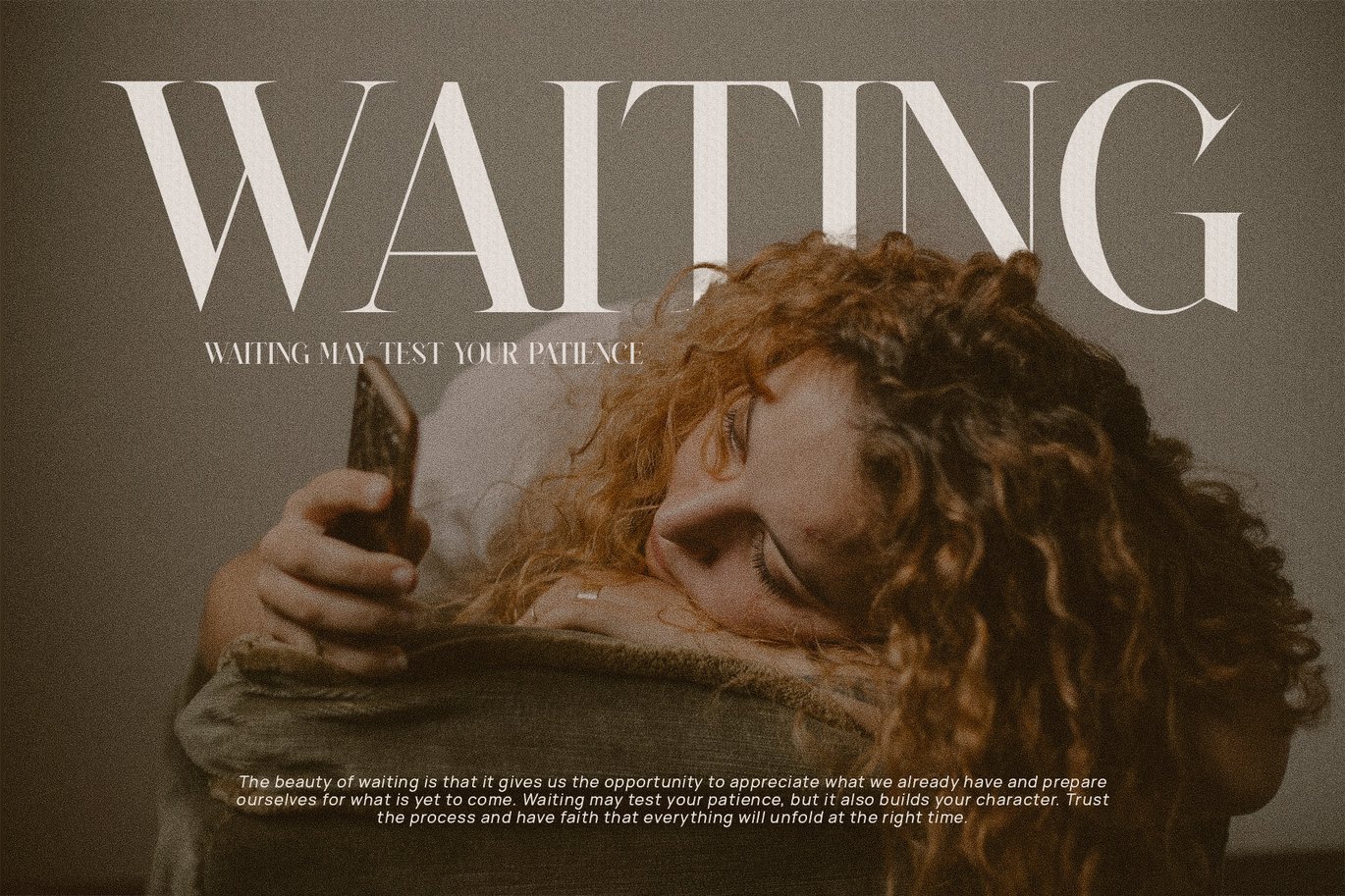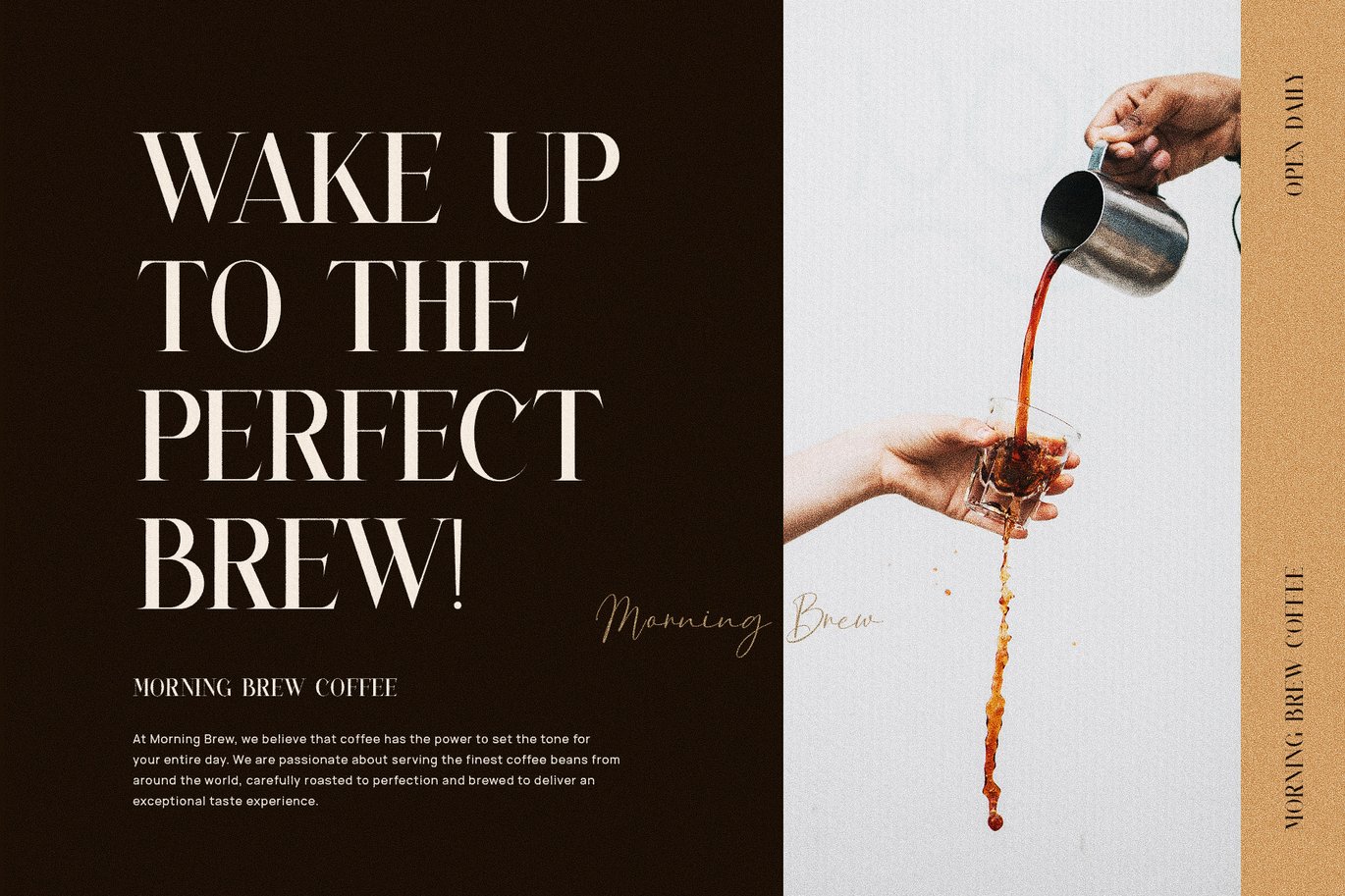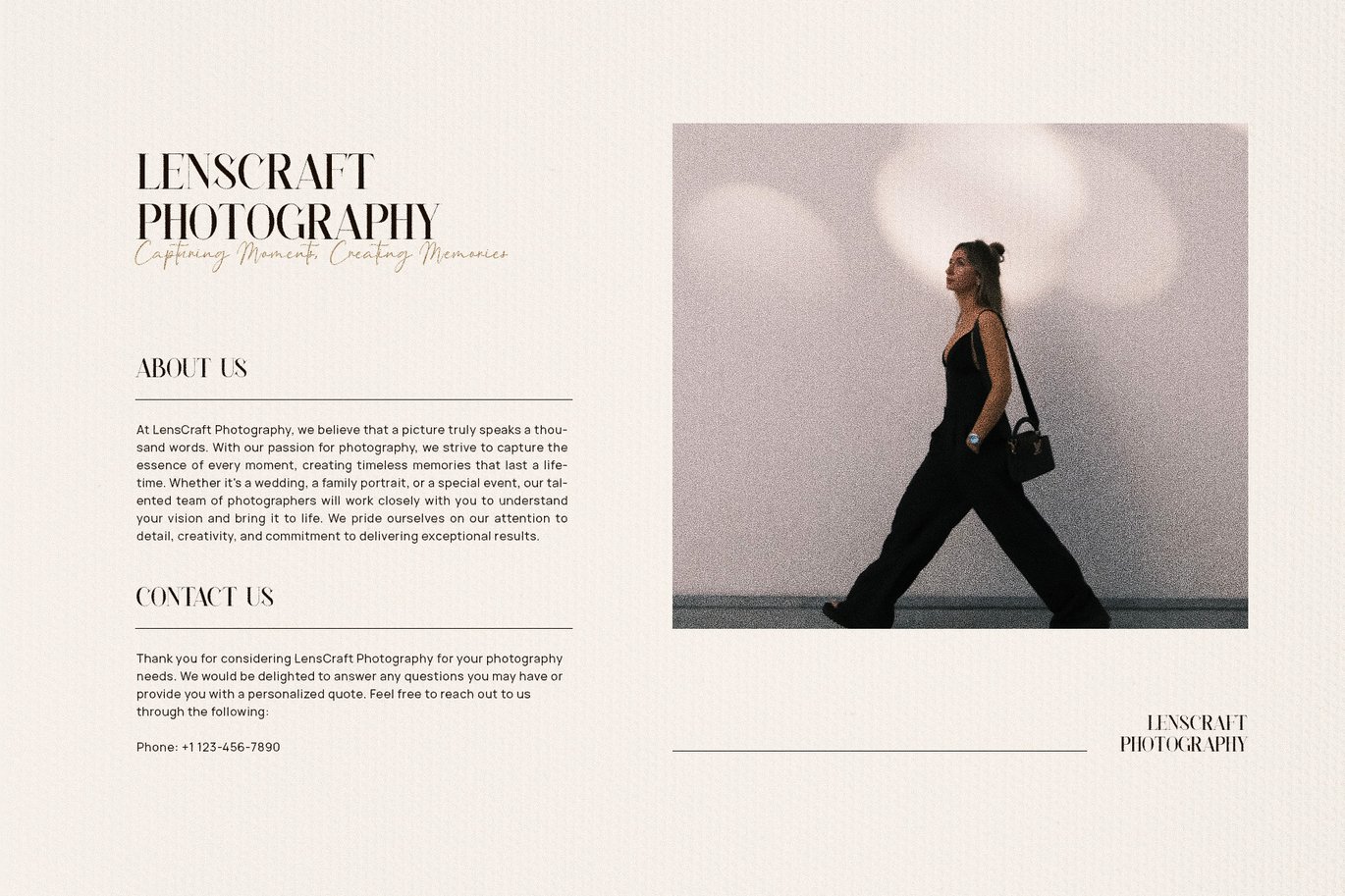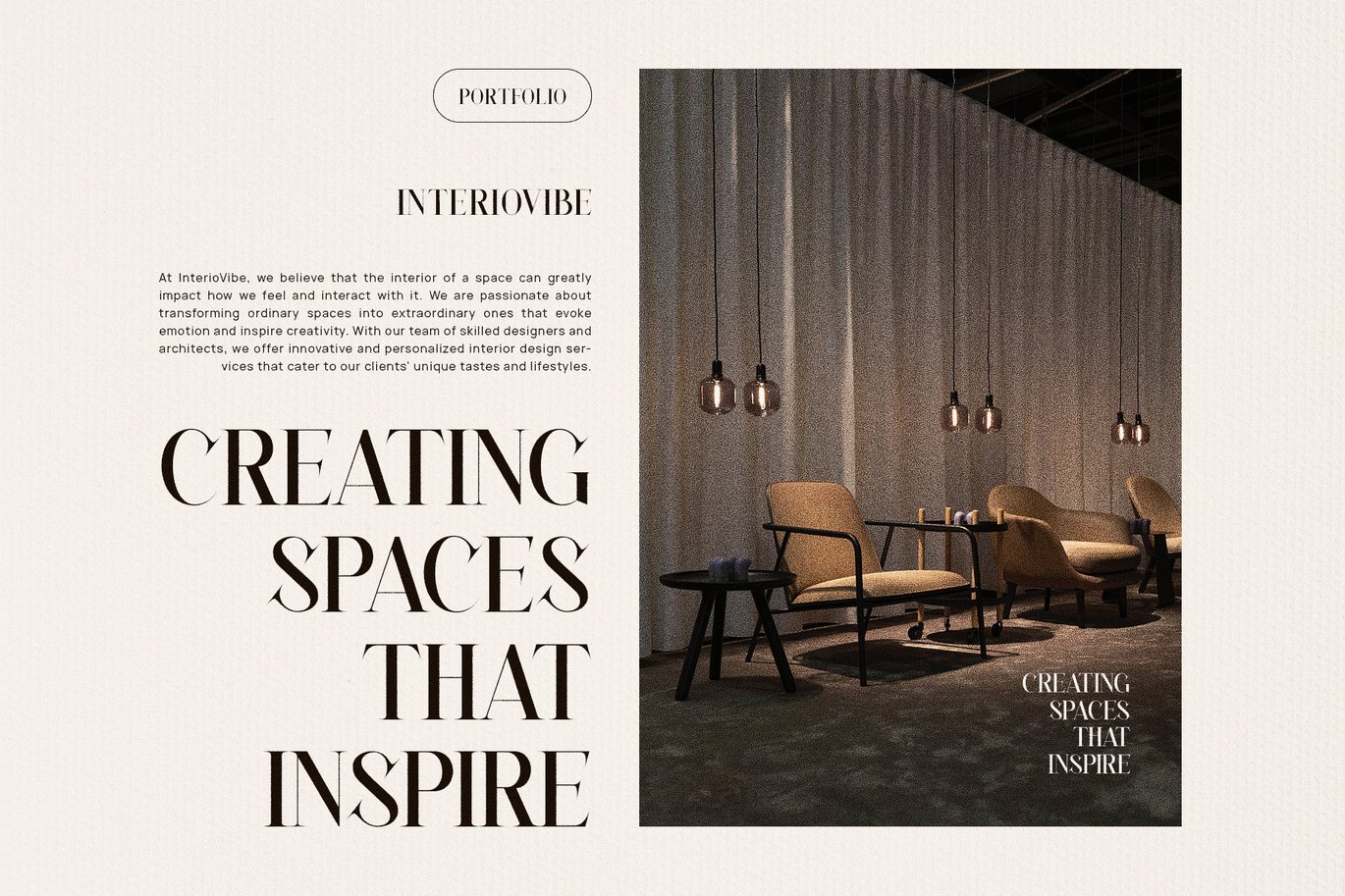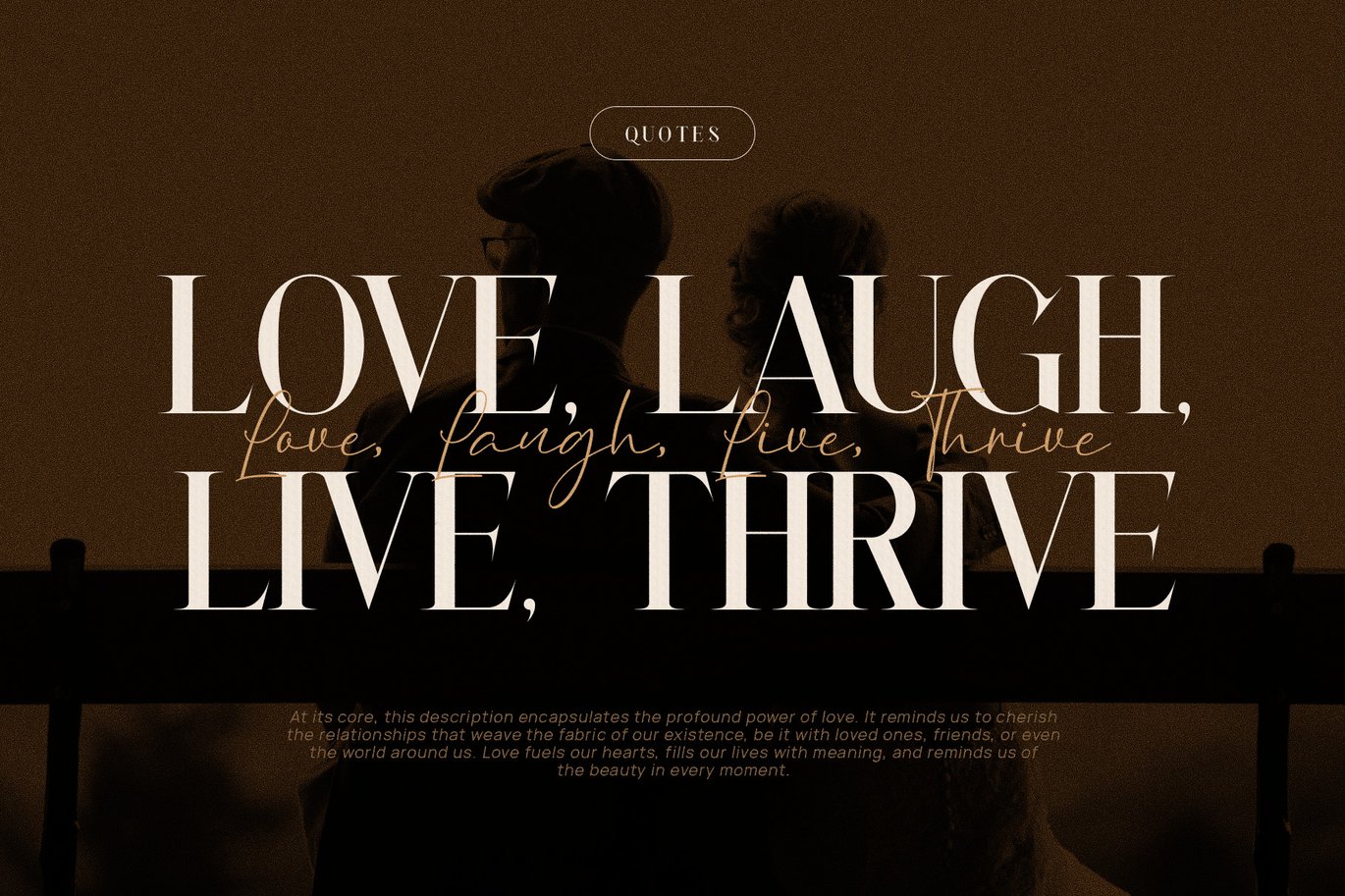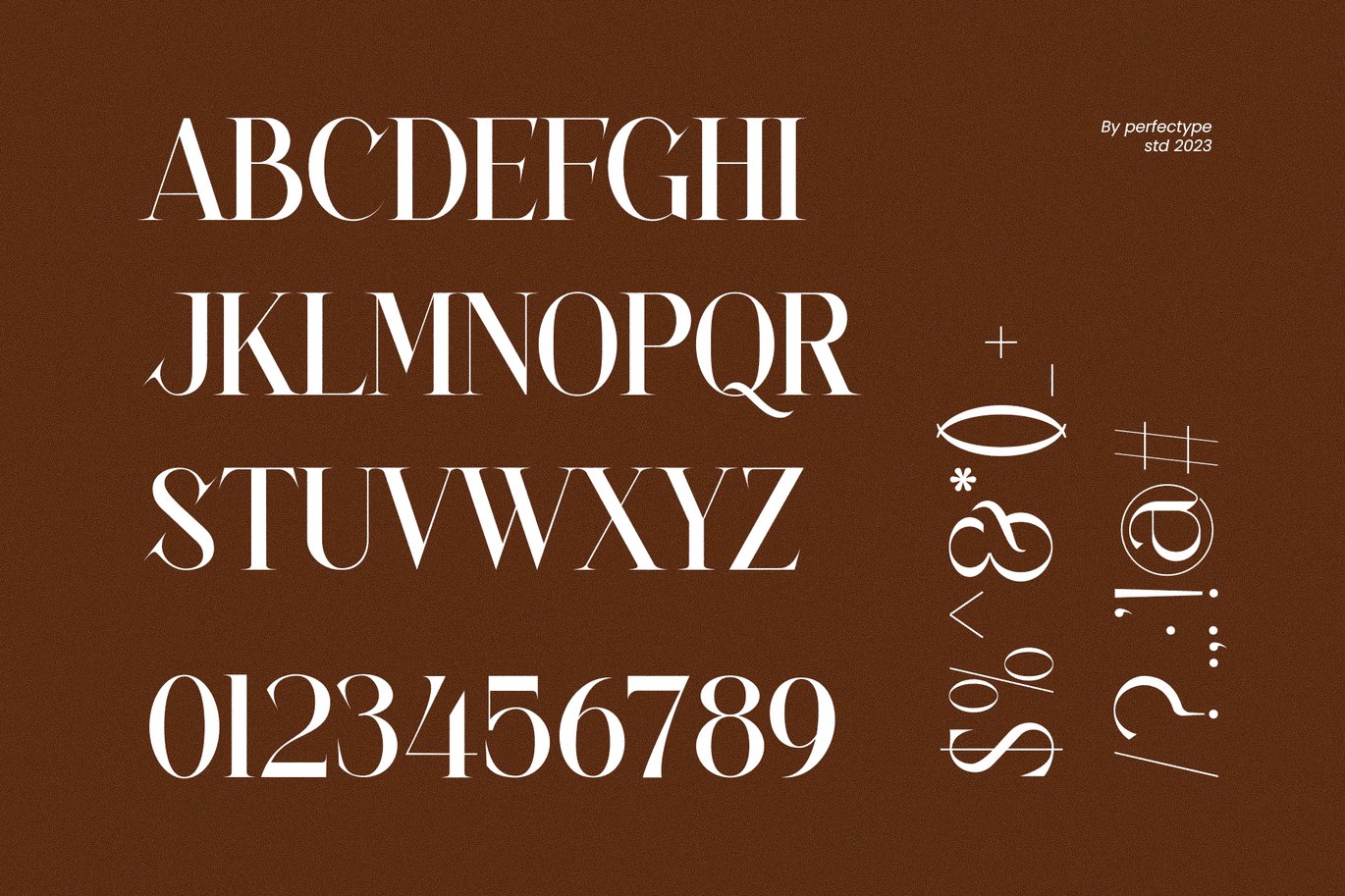
Hunter Elegant Serif Font Typeface
Hunter Elegant Serif is a refined typeface that blends timeless vintage aesthetics with contemporary elegance. Designed for those who appreciate sophistication, this font boasts graceful ligatures and exquisite alternate characters, making it an ideal choice for high-end branding, editorial designs, luxury packaging, and premium website typography.
With its well-balanced letterforms, smooth curves, and subtle details, Hunter exudes confidence and class. Its bold yet elegant presence enhances everything from logos and magazine layouts to product packaging, fashion branding, and boutique signage. The beautifully crafted ligatures add a unique flow to the text, creating a seamless and artistic visual appeal that elevates any design project.
Hunter’s versatility makes it perfect for both modern and classic applications. Whether you’re designing an upscale restaurant menu, a sophisticated beauty brand, or an editorial masterpiece, this font delivers a striking yet refined touch. Its readability and distinct personality ensure that every word stands out with poise and style.
Ideal for designers seeking a font that embodies both strength and elegance, Hunter Elegant Serif is more than just typography—it’s a statement. Elevate your designs with this stunning serif that captures the essence of luxury, creativity, and timeless sophistication.